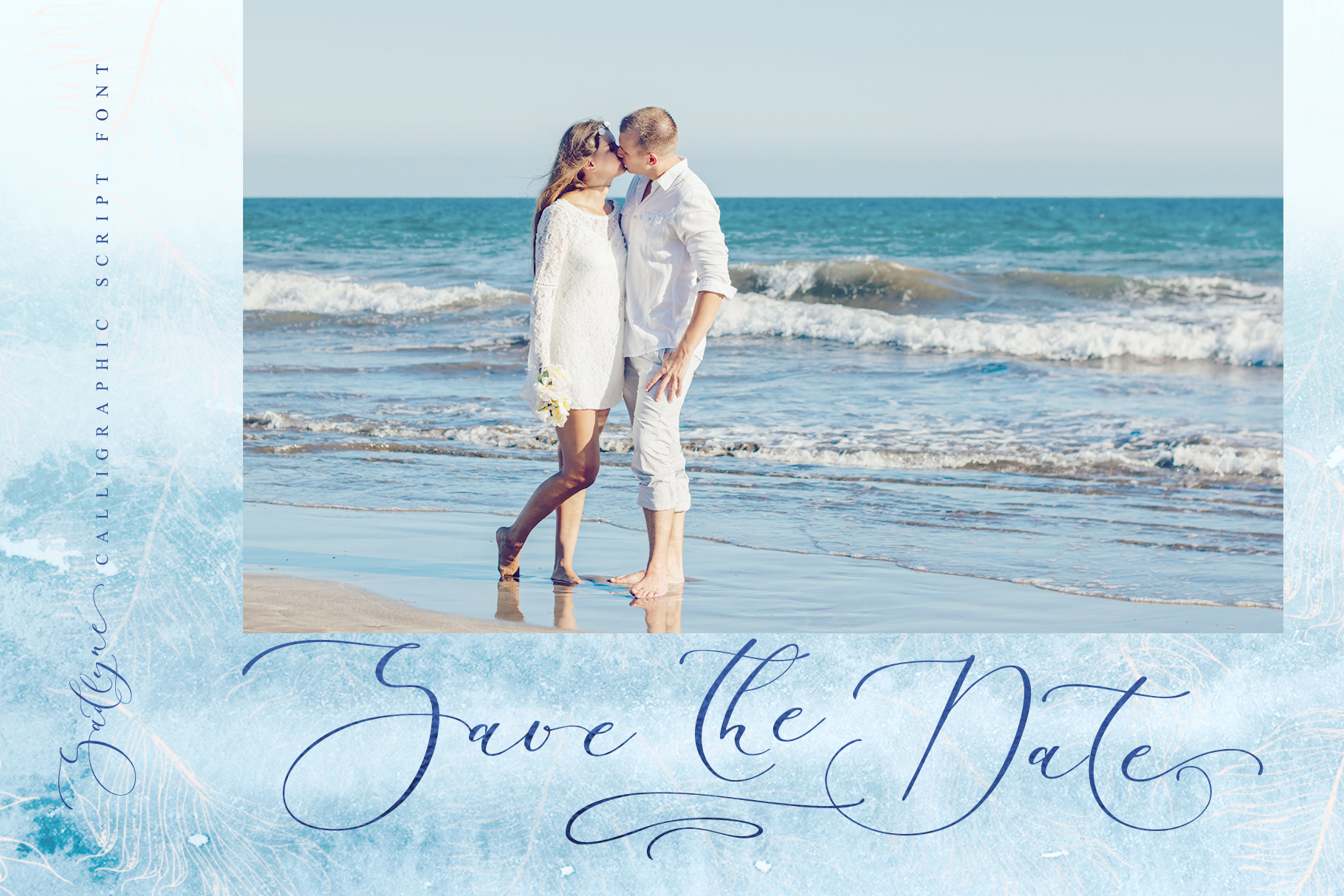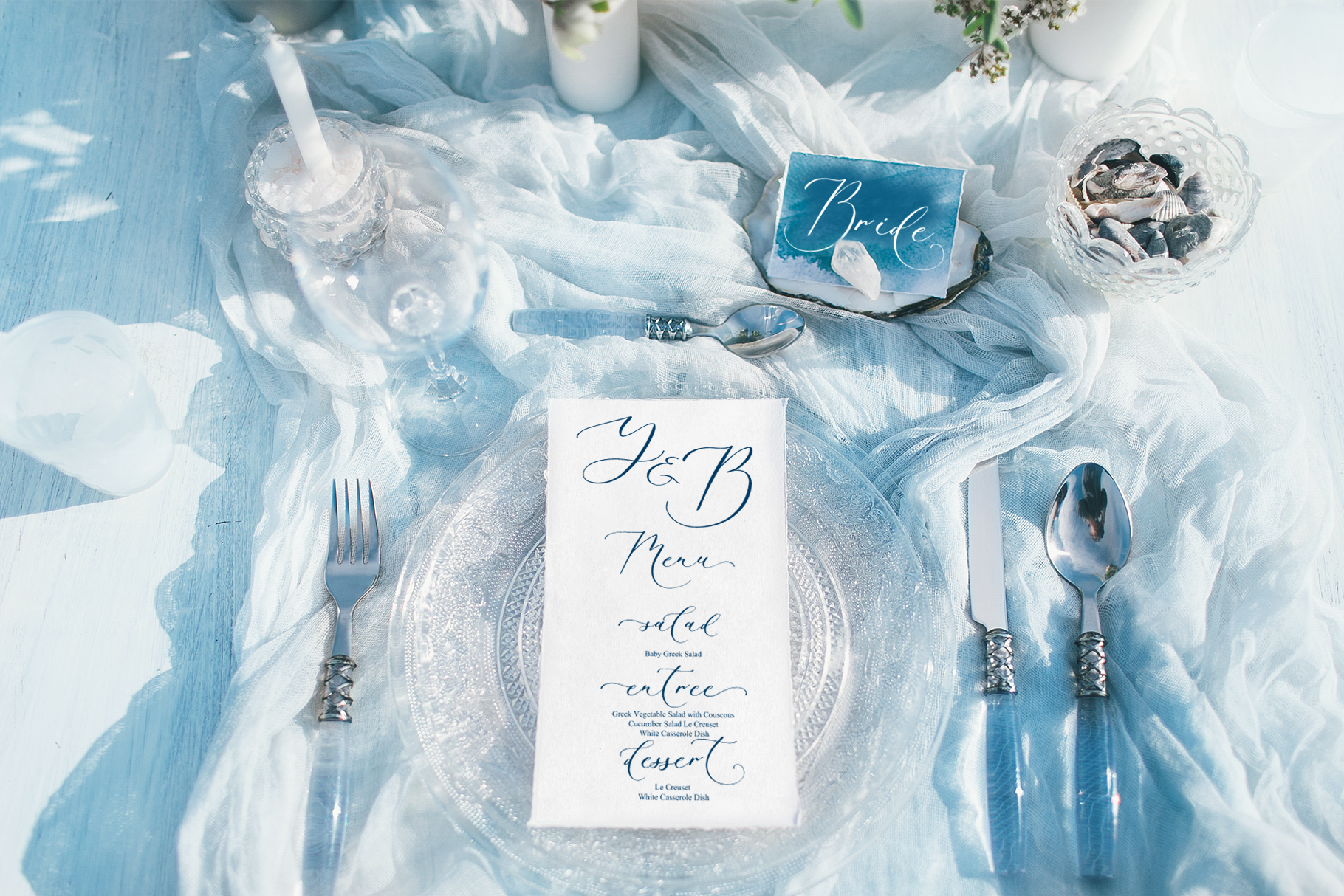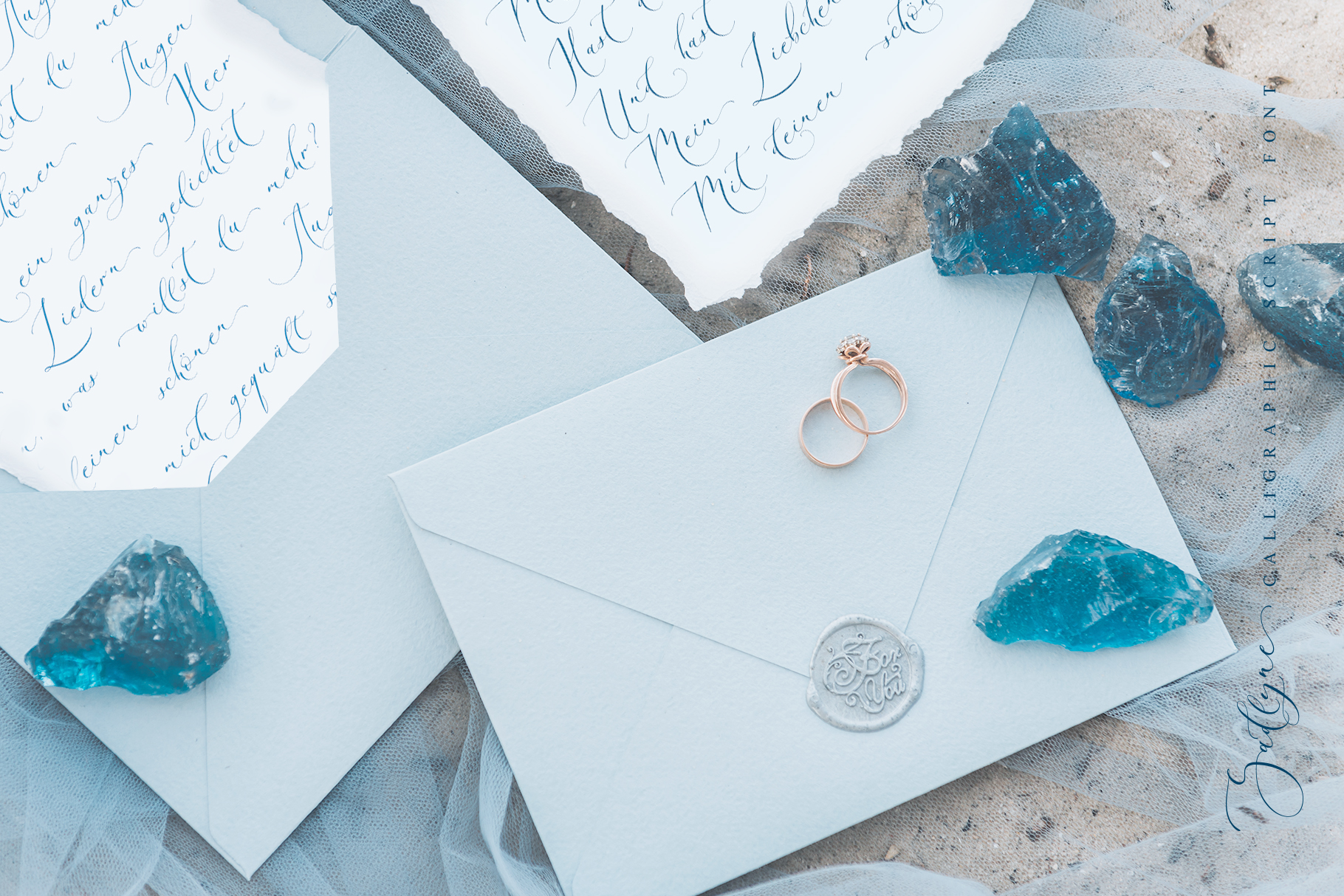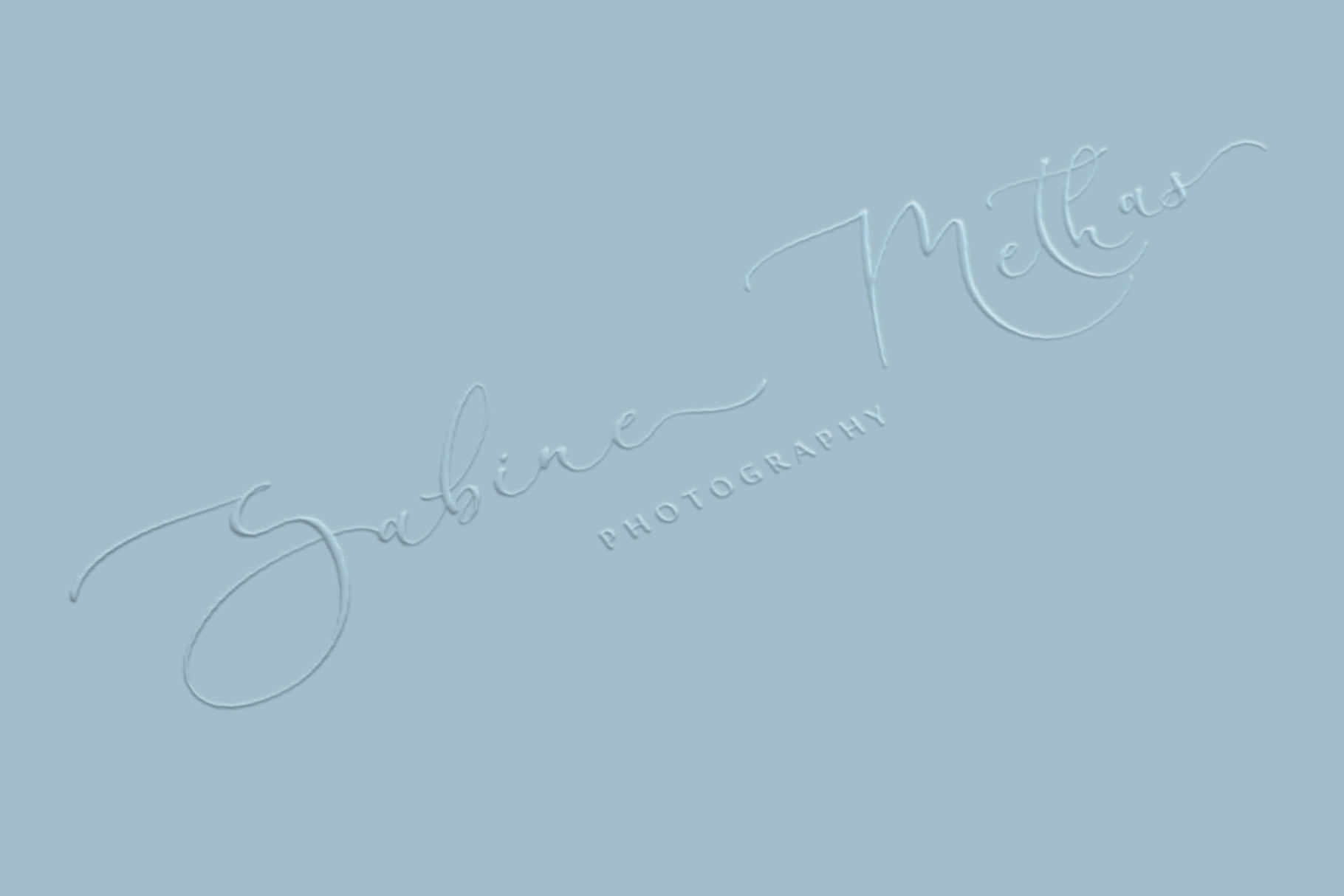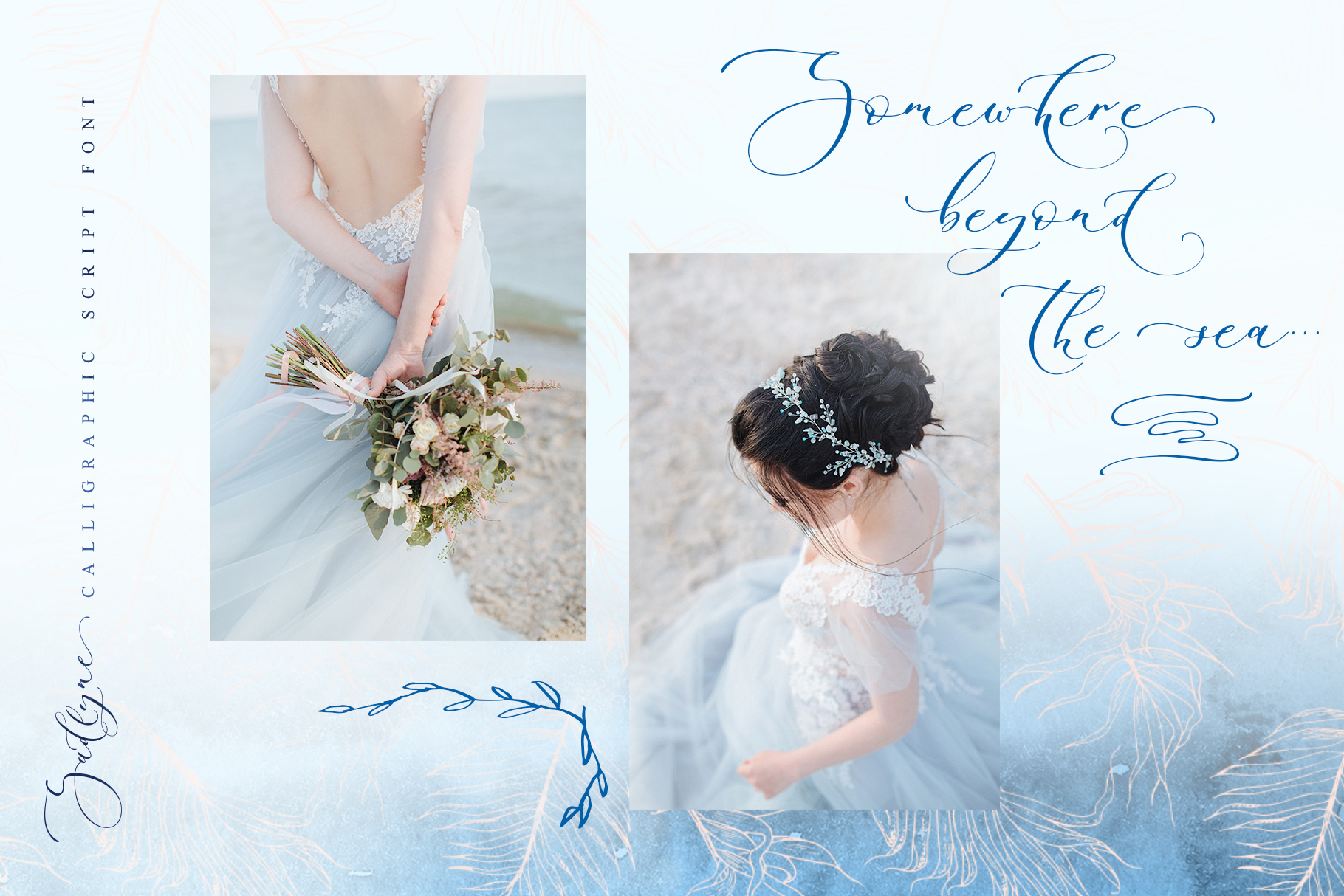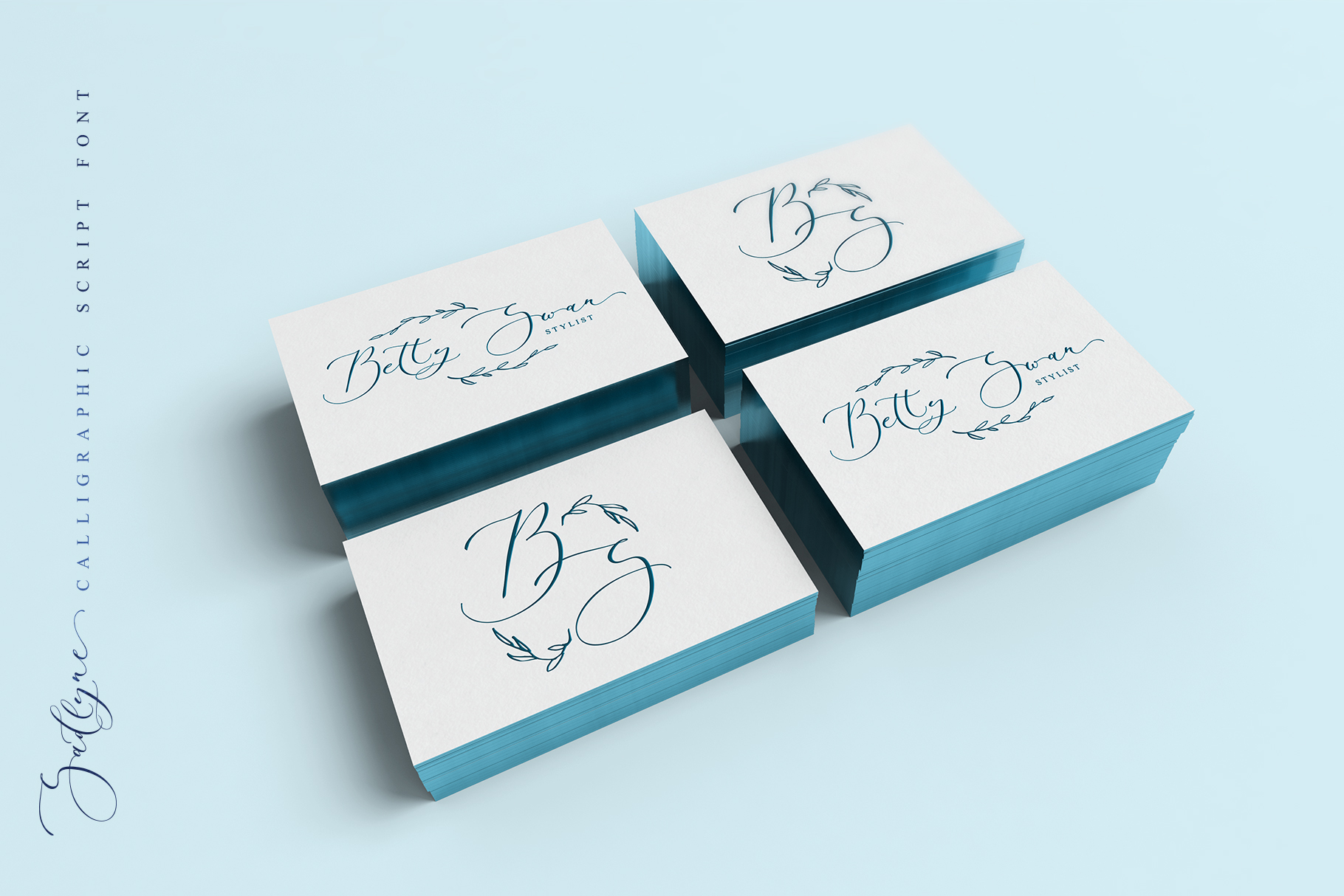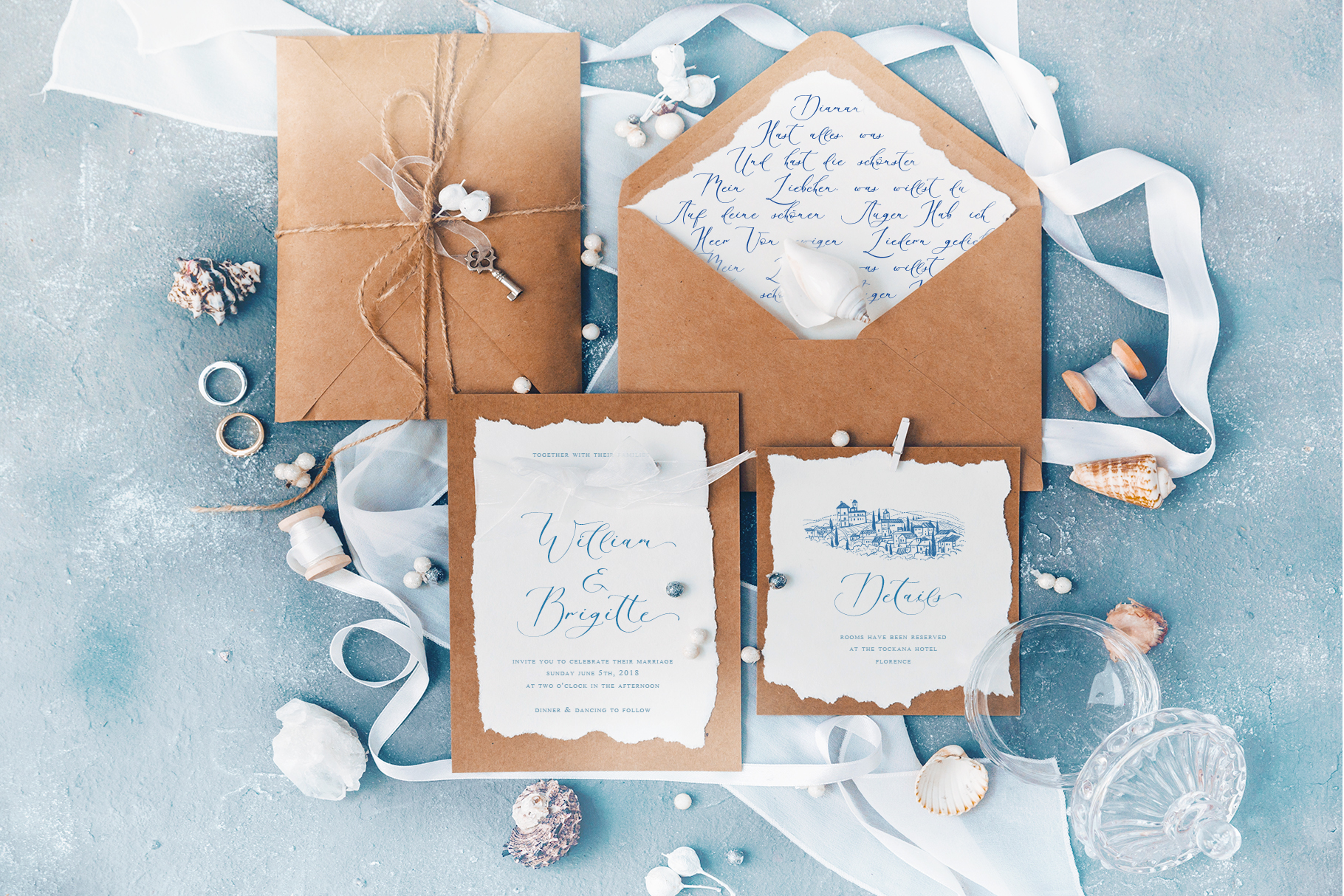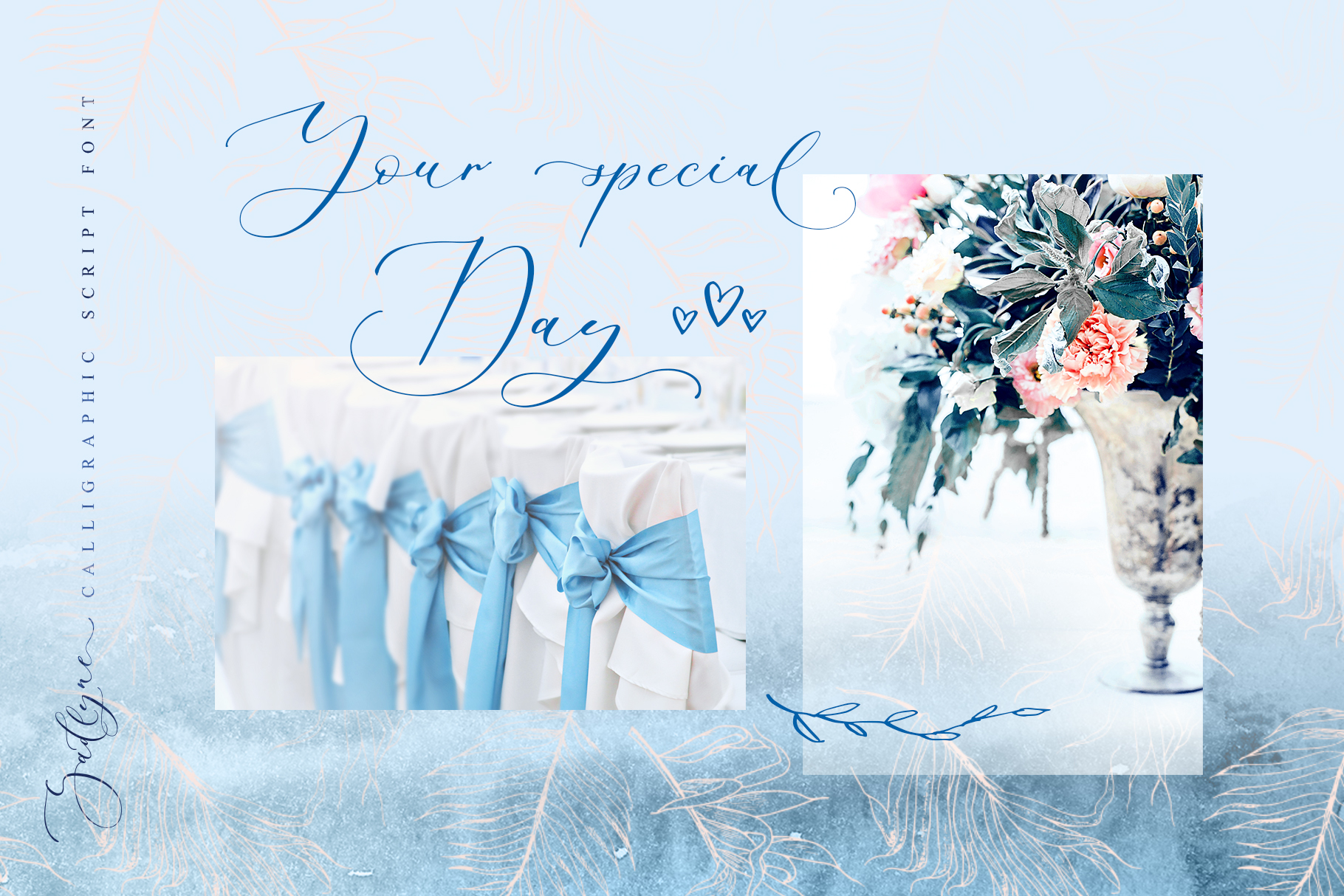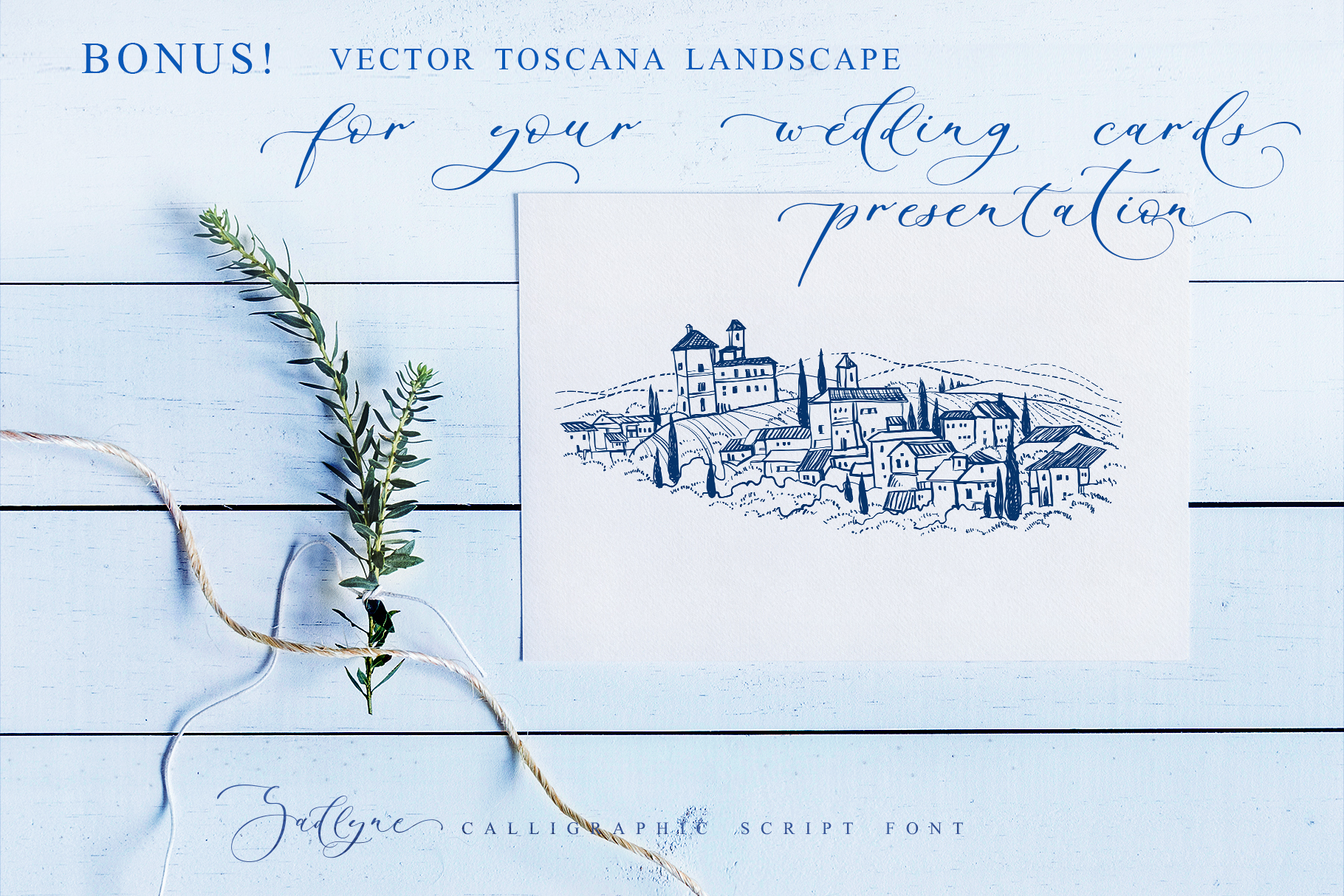
I'm happy to present Sadlyne Cyrillic - my new wedding calligraphic handwritten script font.
Sadlyne script is perfect for all wedding stationery and monograms as well as branding, logos, social media, packaging, and other projects that require an elegant touch plus it contains 36 lovely hand-drawn flourishes and illustrations.
Sadlyne script contains a full set of uppercase letters and 5 full sets of lowercase letters, (standard, alternative, and initial, final form and flourish form. To make a needed form just type a letter with a number such as a1, a2 a3...) and 27 ligatures - which can be used to create a handwritten calligraphy look.
The Cyrillic part of the font contains the uppercase letters and 3 full sets of lowercase letters, (standard, initial and final form. To make a needed form just type a letter with a number such as a1, a2 a3... after that select the word and apply the Open Type Features in programs such as Adobe Illustrator, Photoshop, and others) Also Cyrillic part of the font contains 12 Cyrillic ligatures.
Sadlyne Symbols is a font with over 36 hand-drawn elements, illustrations, and swashes and can help to make your design more original. Combine and arrange swashes and illustrations to create your own designs and make borders, frames, dividers, logos, and more (just use A-Z and a-z keys in the included Sadlyne Symbols font). A different symbol is assigned to every uppercase or lowercase standard character so you do not need graphics software just simply type the letter you need.